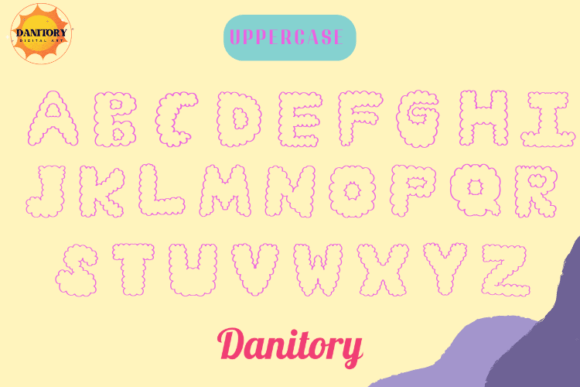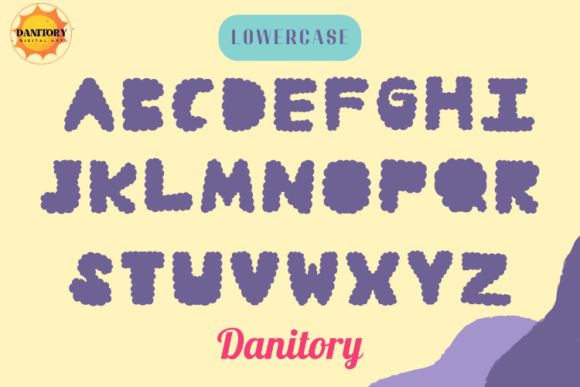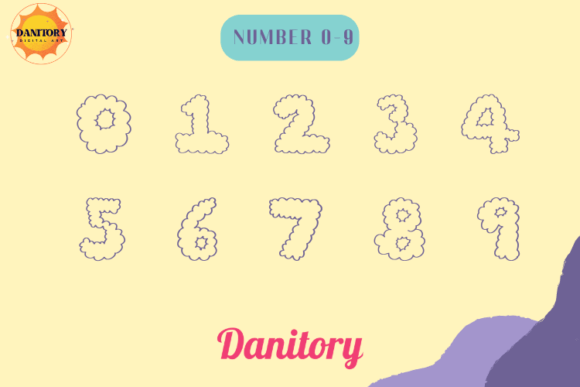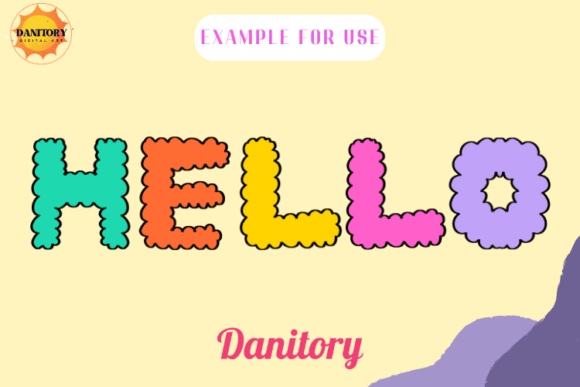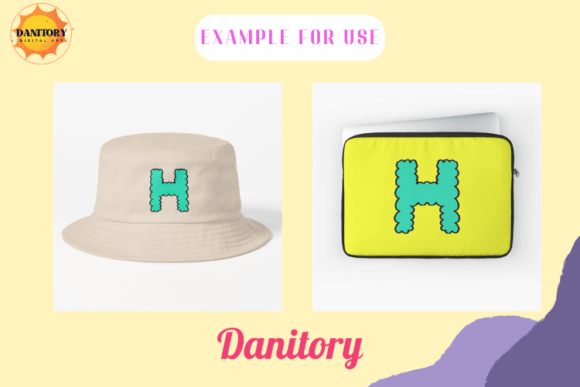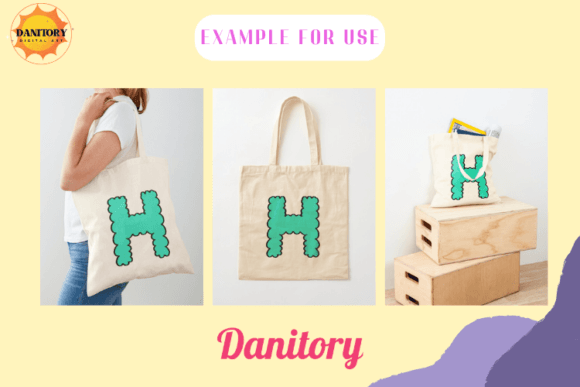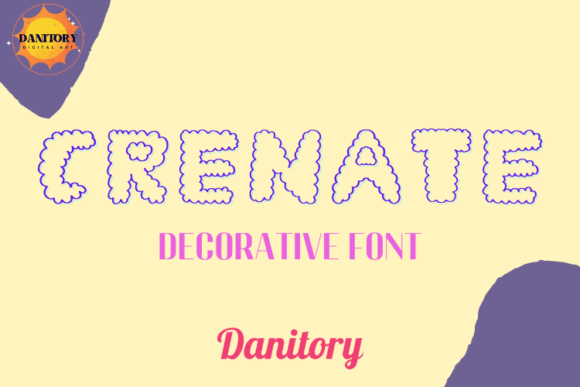
Crenate Font: The Whimsical Cloud-Shaped Font for Designers and Crafters
In the world of typography, fonts come in all shapes and sizes, each with its own unique character and personality. For designers and crafters looking to add a touch of whimsy and playfulness to their work, the Crenate Font is a perfect choice. This cloud-shaped font is sure to delight, with its fluffy and rounded letters that are as soft as a cloud.
What is Crenate Font?
Crenate Font is a unique and creative font that features cloud-shaped letters, creating a distinctive and memorable look. The font is designed to be playful and fun, making it perfect for a variety of applications, from children’s books and posters to social media content and branding. The cloud-shaped letters are carefully crafted to be fluffy and rounded, giving the font a whimsical feel that’s sure to capture the attention of your audience.
Features of Crenate Font
The Crenate Font has several features that make it a standout choice for designers and crafters. Some of its key features include:
- Cloud-shaped letters: The font features cloud-shaped letters that are unique and playful, adding a touch of whimsy to any design.
- Fluffy and rounded: The letters are carefully crafted to be fluffy and rounded, giving the font a soft and approachable feel.
- High-quality design: The font is designed with high-quality craftsmanship in mind, ensuring that it looks great in any application.
- Versatile: The Crenate Font is versatile and can be used in a variety of applications, from children’s books and posters to social media content and branding.
Uses of Crenate Font
The Crenate Font is perfect for a variety of applications, including:
- Children’s books: The font’s playful and whimsical feel makes it perfect for children’s books, adding a touch of magic and wonder to your story.
- Posters and flyers: The font’s bold and eye-catching design makes it perfect for posters and flyers, grabbing the attention of your audience and leaving a lasting impression.
- Social media content: The font’s fun and playful feel makes it perfect for social media content, adding a touch of personality to your posts and updates.
- Branding and advertising: The font’s unique and memorable design makes it perfect for branding and advertising, helping to create a distinctive and recognizable brand identity.
Benefits of Using Crenate Font
There are several benefits to using the Crenate Font in your designs, including:
- Unique and memorable: The font’s cloud-shaped letters are unique and memorable, helping to set your brand or design apart from the crowd.
- Playful and whimsical: The font’s playful and whimsical feel makes it perfect for designs that need to appeal to a younger audience or convey a sense of fun and personality.
- High-quality design: The font’s high-quality design ensures that it looks great in any application, from print to digital.
- Easy to use: The font is easy to use and can be easily integrated into your design workflow.
Tips for Using Crenate Font
Here are some tips for using the Crenate Font in your designs:
- Use it sparingly: The font’s bold and eye-catching design makes it perfect for use sparingly, such as in headings or titles.
- Pair it with other fonts: The font pairs well with other fonts, such as sans-serif fonts, to create a unique and interesting design.
- Experiment with colors: The font looks great in a variety of colors, so don’t be afraid to experiment and find the perfect color scheme for your design.
In conclusion, the Crenate Font is a unique and playful font that’s perfect for designers and crafters looking to add a touch of whimsy to their work. With its cloud-shaped letters, fluffy and rounded design, and high-quality craftsmanship, this font is sure to delight. Whether you’re creating children’s books, posters, or social media content, the Crenate Font is a great choice.